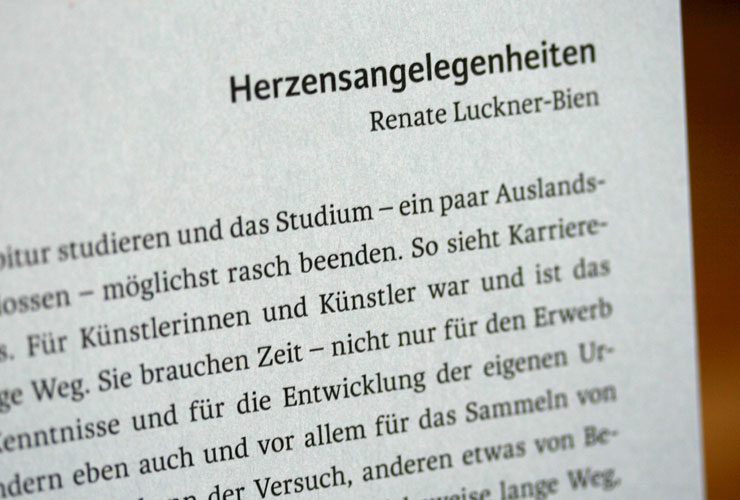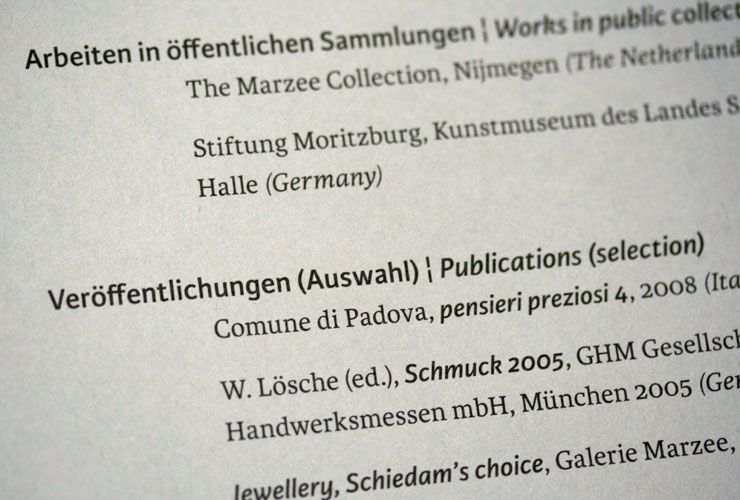
This beautifully designed and printed catalogue shows jewellery made by Christine Matthias. The German designers Torsten Illner and Moritz Grünke from büro pluspunkt say: " The aim was to show the jewellery in the original size and to reduce the typography on the picture-pages to a minimum. Therefore we developed an inconspicuous index system in the cover pages."